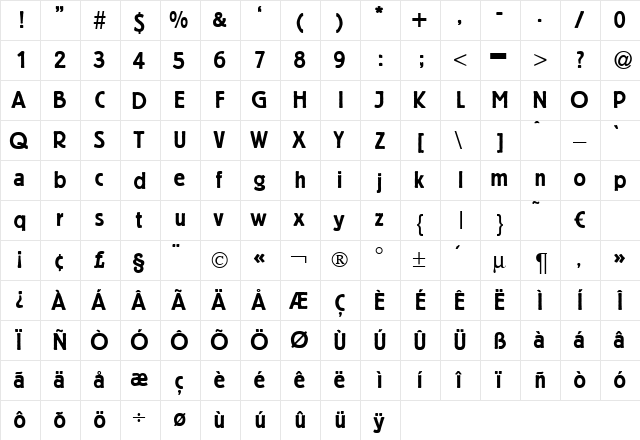
BeginnerDB Bold
Design Context for BeginnerDB Typeface
BeginnerDB offers clean, dependable letterforms without strong stylistic allegiance, making it a practical choice for designers who need flexibility. The heavy weight commands attention and anchors typographic hierarchies.